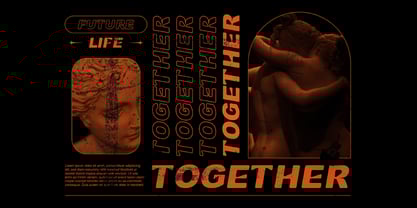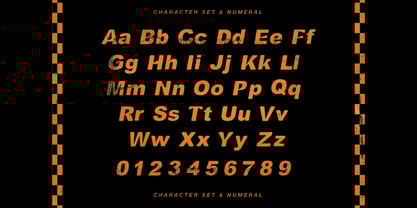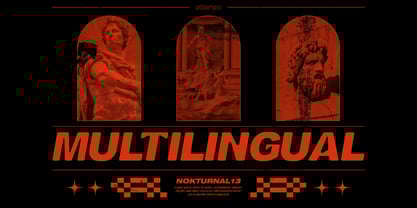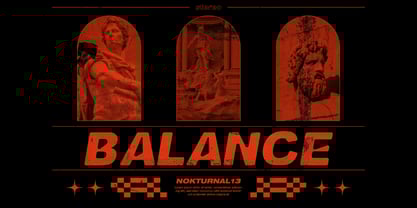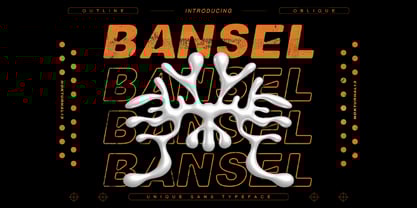
Bansel
by Nokturnal13
Bansel – Display Unique Sans
Bansel is a bold and stylish sans-serif typeface with a unique personality, perfect for making a strong visual statement. Designed with distinctive letterforms and a modern edge, Bansel is ideal for branding, posters, headlines, album covers, apparel, and anything that demands attention.
Its sharp, clean lines and creative design details make it stand out in both digital and print formats. Whether you're working on a music project, fashion campaign, or creative editorial, Bansel brings an original and confident touch to your typography.